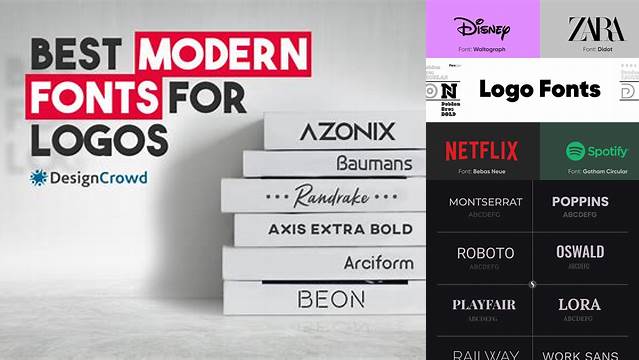
Best Fonts For Typography Logos: A Designer's Guide
Choosing the right font for a typography logo is crucial. The font sets the tone, communicates the brand's personality, and ensures readability. Let’s dive into the world of fonts and discover the best options for creating stunning and effective typography logos, guys!
H2: Understanding Typography in Logo Design
Typography in logo design is more than just picking a pretty font. It's about selecting a typeface that embodies the brand's essence and speaks to its target audience. The right font can convey trustworthiness, innovation, playfulness, or sophistication. Think of iconic logos like Coca-Cola or Disney; their fonts are instantly recognizable and deeply intertwined with their brand identity. Factors like kerning (the space between letters), leading (the space between lines), and the overall weight and style of the font all contribute to the logo's effectiveness. A well-chosen font can elevate a simple design, making it memorable and impactful. It's also about ensuring legibility across various platforms, from business cards to billboards. Typography choices should reflect a brand's values and create a lasting impression. Consider the emotional impact of different fonts: serifs often feel traditional and reliable, while sans-serifs can appear modern and clean. Pairing fonts effectively can also add depth and visual interest to a logo. The goal is to create a harmonious balance that resonates with the brand's overall aesthetic. The best fonts not only look good but also communicate effectively.
H2: Serif Fonts for Logos: Classic and Elegant
Serif fonts, characterized by their small decorative strokes (serifs) at the end of each letter, often evoke feelings of tradition, reliability, and elegance. They're a fantastic choice for brands aiming to project a sense of history or authority. Times New Roman, while often considered a default, showcases the classic appeal of serif fonts. However, there are many more sophisticated and unique serif options available for logo design. Garamond, with its refined and timeless quality, is perfect for brands seeking a touch of understated elegance. Georgia, designed for on-screen readability, offers a more contemporary take on the serif style while maintaining a sense of trustworthiness. For a bolder statement, consider Playfair Display, a high-contrast serif that exudes sophistication and modernity. When using serif fonts in logos, it's important to pay attention to the kerning and leading to ensure optimal readability. Serif fonts can be particularly effective for brands in industries like law, finance, or luxury goods, where tradition and trust are paramount. The choice of a serif font can instantly elevate a logo, adding a touch of class and sophistication. Experiment with different weights and styles to find the perfect balance for your brand's identity. The best fonts can truly transform a logo.
H2: Sans-Serif Fonts: Modern and Minimalist
Sans-serif fonts, known for their clean lines and lack of serifs, offer a modern and minimalist aesthetic. They're a popular choice for brands aiming to project a sense of innovation, simplicity, and clarity. Helvetica, a timeless classic, is a prime example of a versatile sans-serif font. Arial, while similar to Helvetica, provides a slightly softer and more approachable feel. For a more contemporary and geometric look, consider Futura, which exudes a sense of forward-thinking and modernity. Open Sans, designed for readability on screens, is a great option for digital-focused brands. Lato, with its semi-rounded details, offers a friendly and approachable vibe. When using sans-serif fonts in logos, it's important to ensure proper spacing and alignment to maintain a clean and balanced design. Sans-serif fonts are particularly effective for tech companies, startups, and brands seeking a modern and minimalist identity. They can also work well for brands that want to convey a sense of transparency and honesty. The best fonts in the sans-serif category provide a sleek and contemporary look. Exploring different weights and styles can help you find the perfect sans-serif font to represent your brand's unique personality. The best fonts not only look good but also communicate effectively.
H2: Script Fonts: Elegant and Personal
Script fonts mimic the fluidity of handwriting, adding an elegant and personal touch to logos. They are ideal for brands aiming to convey creativity, artistry, or a sense of intimacy. Brush Script, with its bold and expressive strokes, can add a playful and energetic vibe. Pacifico, a retro-inspired script, is perfect for brands seeking a vintage or beachy feel. Great Vibes, a more formal and elegant script, is suitable for luxury or wedding-related businesses. Lobster, a bold condensed script, offers a unique and eye-catching appeal. When using script fonts in logos, legibility is crucial. Avoid using them in all caps and ensure that the letterforms are clear and easy to read. Script fonts are particularly effective for brands in industries like fashion, beauty, or handmade goods, where a personal touch is highly valued. Pairing script fonts with simpler sans-serif fonts can create a balanced and visually appealing logo. Remember that the best fonts should reflect the brand's personality. The right script font can instantly add a touch of sophistication and individuality to a logo. Experiment with different styles and weights to find the perfect script font to capture your brand's essence.
H2: Display Fonts: Unique and Eye-Catching
Display fonts are designed to grab attention and make a statement. They often feature unique and unconventional letterforms, making them ideal for logos that need to stand out. Bebas Neue, a clean and versatile sans-serif display font, is a popular choice for its modern and impactful look. Montserrat, a geometric sans-serif, offers a contemporary and stylish appeal. Oswald, a condensed sans-serif, is perfect for logos that need to maximize space. Playfair Display, a high-contrast serif display font, exudes elegance and sophistication. When using display fonts in logos, it's important to consider readability and ensure that the font complements the overall design. Display fonts are particularly effective for brands seeking a bold and memorable identity. They can also be used to add a touch of personality and creativity to a logo. However, it's crucial to use them sparingly and avoid overcrowding the design. The best fonts are legible and memorable. The right display font can instantly elevate a logo, making it more visually appealing and impactful. Experiment with different styles and weights to find the perfect display font to represent your brand's unique character. The best fonts not only look good but also communicate effectively.
H2: Font Pairing for Logo Design: Creating Harmony
Font pairing involves combining two or more fonts in a logo to create visual interest and hierarchy. The goal is to find fonts that complement each other and create a harmonious balance. A classic combination is pairing a serif font with a sans-serif font. For example, you could pair Playfair Display with Montserrat to create a logo that is both elegant and modern. Another effective pairing is combining a script font with a simple sans-serif font, such as pairing Great Vibes with Open Sans. When pairing fonts, it's important to consider the contrast between the fonts. A high-contrast pairing can create a dynamic and eye-catching effect, while a low-contrast pairing can create a more subtle and refined look. It's also important to consider the font weights and styles. Using different weights of the same font can create visual hierarchy and add depth to the logo. The best fonts work together seamlessly. Experiment with different font pairings to find the perfect combination for your brand. Remember that the best fonts should complement each other and enhance the overall design. Font pairing is a great way to add personality and visual interest to a logo. Font pairing is an art that elevates the best fonts.
H3: Considering Your Brand Identity
When choosing fonts for your typography logo, it’s paramount to consider your brand identity. What values does your brand represent? What’s your target audience? A playful, whimsical font might suit a children’s brand, but it would clash with a law firm’s need for seriousness and trust. Align your font choice with your brand's personality to create a consistent message. Different fonts evoke different emotions and associations. Serif fonts, like Times New Roman, often convey tradition, authority, and trustworthiness. Sans-serif fonts, such as Helvetica, suggest modernity, simplicity, and clarity. Script fonts bring elegance, creativity, and a personal touch, while display fonts are attention-grabbing and unique. Your brand identity should guide the selection process to ensure your logo resonates with your audience. Research your competitors' logos to identify prevalent font trends within your industry. This helps you understand what works and what doesn't, allowing you to differentiate your brand. Best fonts resonate with your brand identity. Create a brand style guide that outlines your font choices, color palettes, and logo usage guidelines. This ensures consistency across all marketing materials and strengthens your brand recognition. Your logo should be versatile and adaptable to various contexts, so test your font choices on different backgrounds and sizes. The best fonts should work well in both print and digital formats, maintaining readability and impact. By carefully considering your brand identity, you can select fonts that not only look great but also communicate your values effectively.
H3: Readability and Legibility in Logo Fonts
Readability and legibility are vital considerations when selecting fonts for your typography logo. A beautiful font is useless if it's difficult to read or understand. Readability refers to how easily a text can be read and understood, while legibility pertains to how easily individual letters can be distinguished from one another. Choose fonts that are clear and well-defined, with sufficient spacing between letters and lines. Avoid overly decorative or intricate fonts that can obscure the letterforms. Test your font choices in various sizes to ensure they remain legible even when reduced. Pay attention to kerning, the spacing between individual letters, to prevent letters from blending together or appearing too far apart. Also, consider leading, the vertical space between lines of text, to improve readability and prevent the lines from feeling cramped. When designing for digital platforms, prioritize fonts that are optimized for screen display. Some fonts may appear blurry or distorted on screens, so choose fonts that are designed for web use. Contrast is another crucial factor in readability. Ensure there's sufficient contrast between the font color and the background color to make the text stand out. The best fonts are legible and readable. Avoid using all caps, especially in longer words or sentences, as it can reduce readability. Use a combination of uppercase and lowercase letters to improve the flow of the text. By prioritizing readability and legibility, you can ensure that your logo is easily understood and remembered. The best fonts should be accessible to a wide range of viewers, regardless of their visual abilities.
H3: Font Weight and Style Variations
Font weight and style variations play a crucial role in creating visual hierarchy and emphasis in your typography logo. Font weight refers to the thickness of the letterforms, ranging from thin to extra bold, while font style encompasses variations such as italics, condensed, and expanded. Utilize font weight to highlight key words or phrases in your logo. For instance, you could use a bold font weight for the brand name and a regular weight for the tagline. Italics can add a touch of elegance or sophistication, while condensed fonts are useful for fitting more text into a limited space. Expanded fonts can create a bold and impactful statement. Experiment with different font weight and style combinations to find the perfect balance for your logo. Avoid using too many variations, as it can create a cluttered and confusing design. A general rule of thumb is to stick to two or three font weights or styles within a single logo. Consider the overall tone and message you want to convey with your logo. A bold and heavy font weight might be suitable for a brand that wants to project strength and authority, while a light and delicate font weight might be better suited for a brand that wants to convey elegance and sophistication. The best fonts offer a range of weights and styles. Ensure that your font choices are consistent with your brand identity and target audience. Using font weight and style variations effectively can enhance the visual appeal and impact of your logo, making it more memorable and effective. The best fonts can transform your logo.
H3: The Future of Fonts in Logo Design
The future of fonts in logo design is likely to be shaped by several emerging trends and technologies. Variable fonts are a relatively new font technology that allows for greater flexibility and customization. Variable fonts can be adjusted along multiple axes (e.g., weight, width, slant) to create a wide range of font variations from a single font file. AI-powered font tools are becoming increasingly sophisticated, making it easier to find, pair, and customize fonts. AI can also be used to generate new fonts based on specific design parameters. 3D fonts are gaining popularity, adding depth and dimension to logo designs. 3D fonts can create a more immersive and engaging visual experience. The best fonts are evolving. Animated fonts are also emerging as a way to add movement and dynamism to logos. Animated fonts can be used to create subtle effects or more elaborate animations. As the metaverse and augmented reality become more prevalent, fonts will need to be designed for these immersive environments. Fonts will need to be legible and visually appealing in 3D space and in augmented reality overlays. The use of color fonts is also expected to increase. Color fonts allow designers to incorporate multiple colors and gradients into a single font. By embracing these emerging trends and technologies, logo designers can create more innovative and impactful brand identities. The best fonts will continue to innovate.